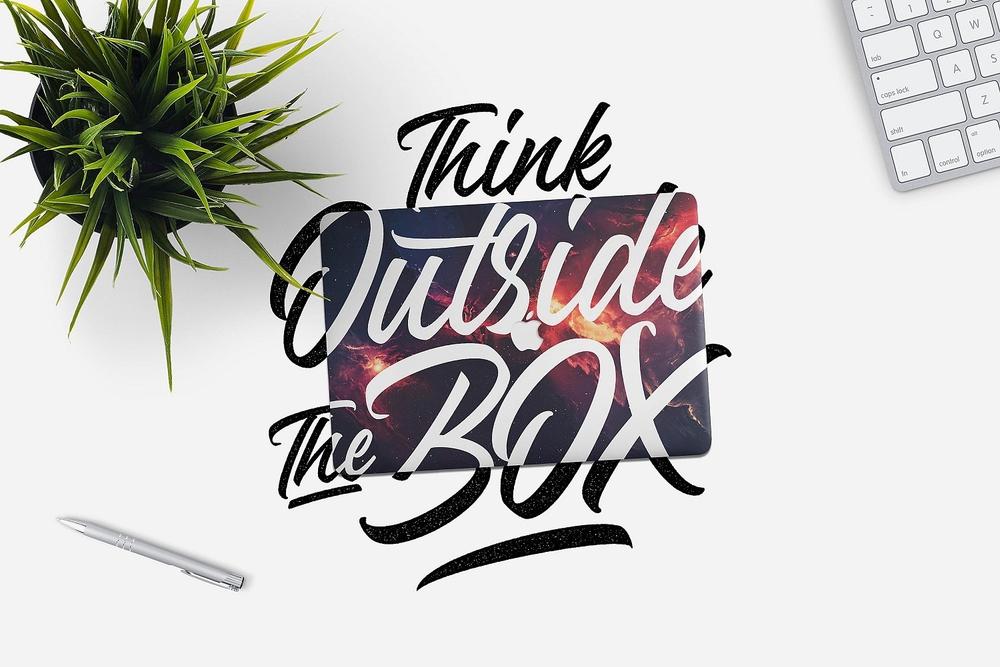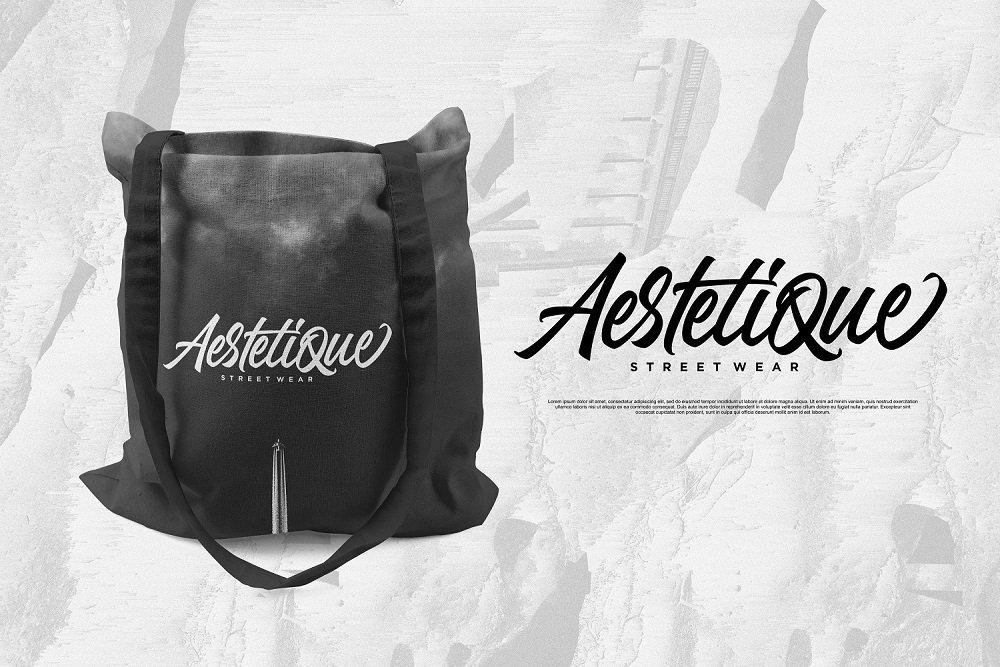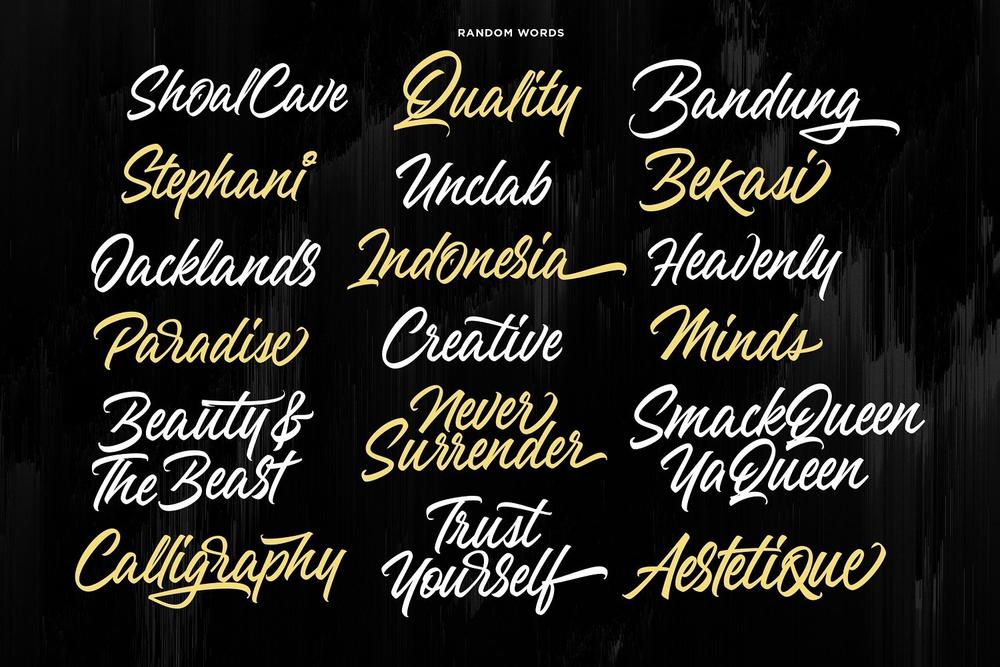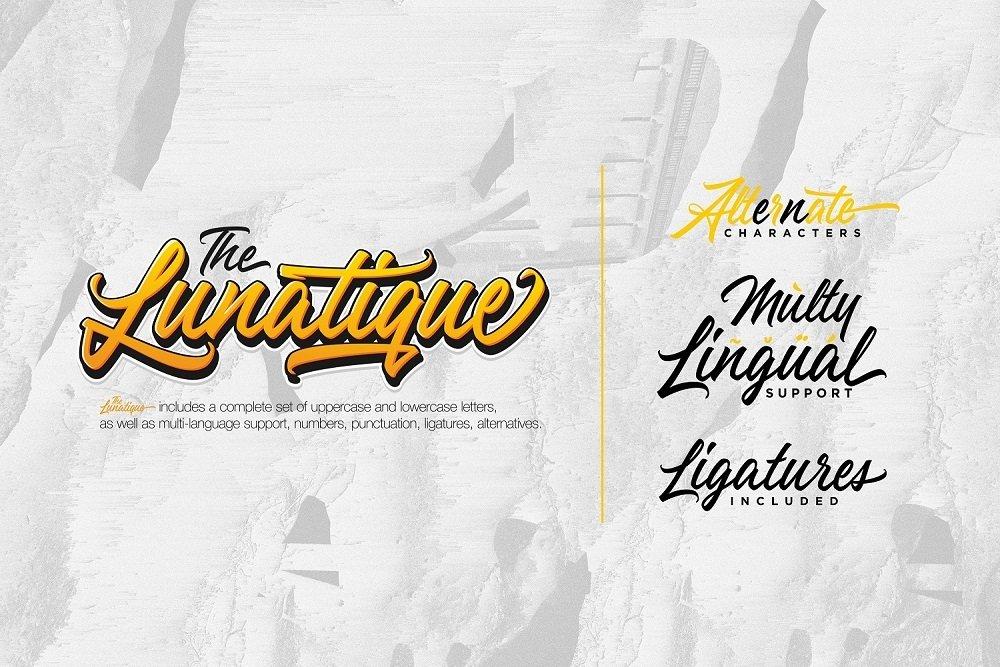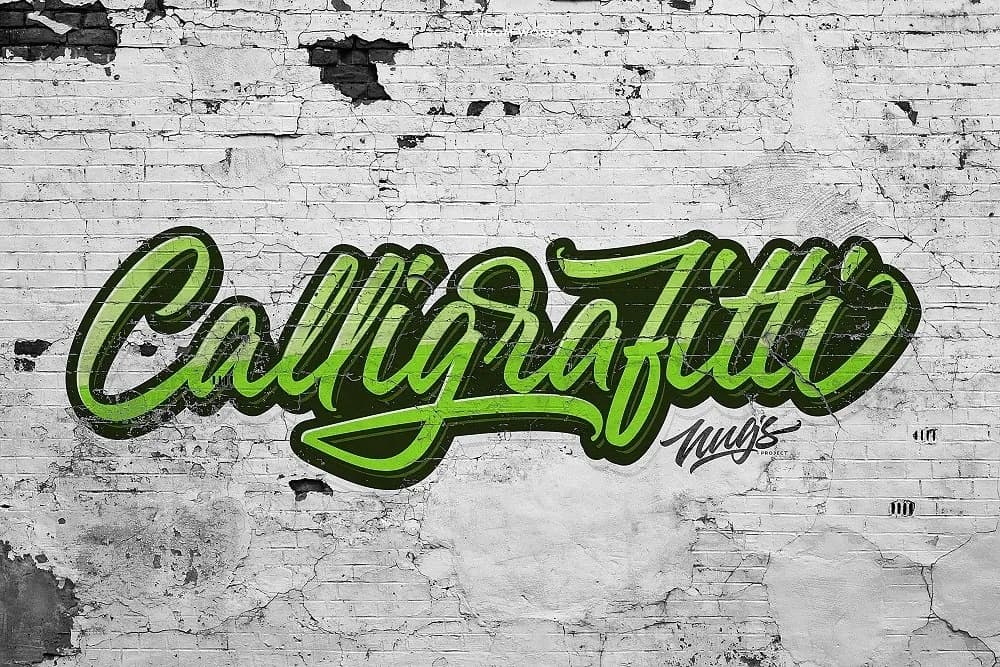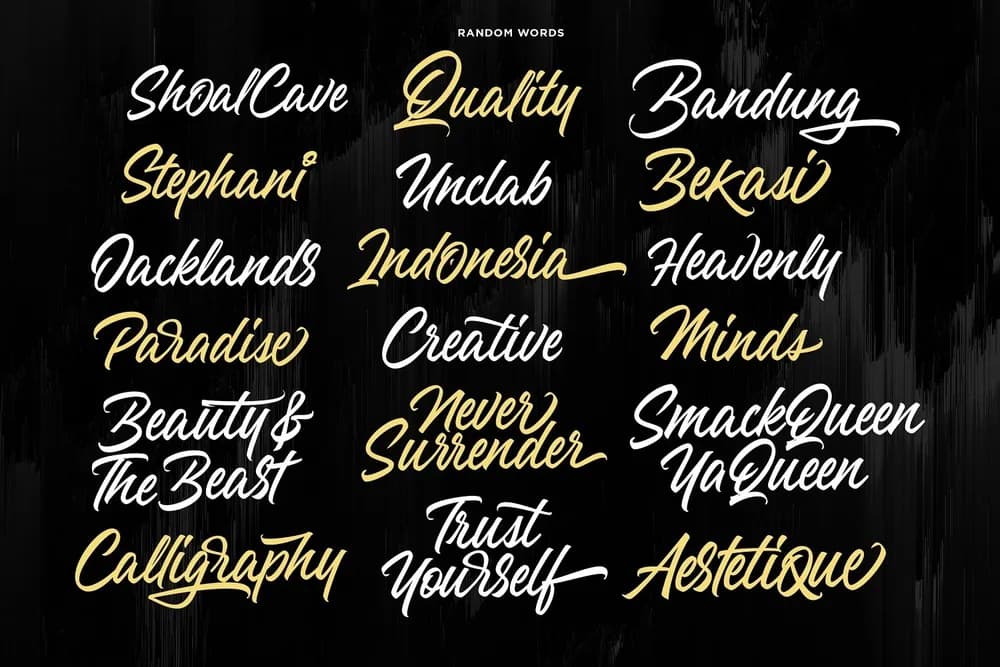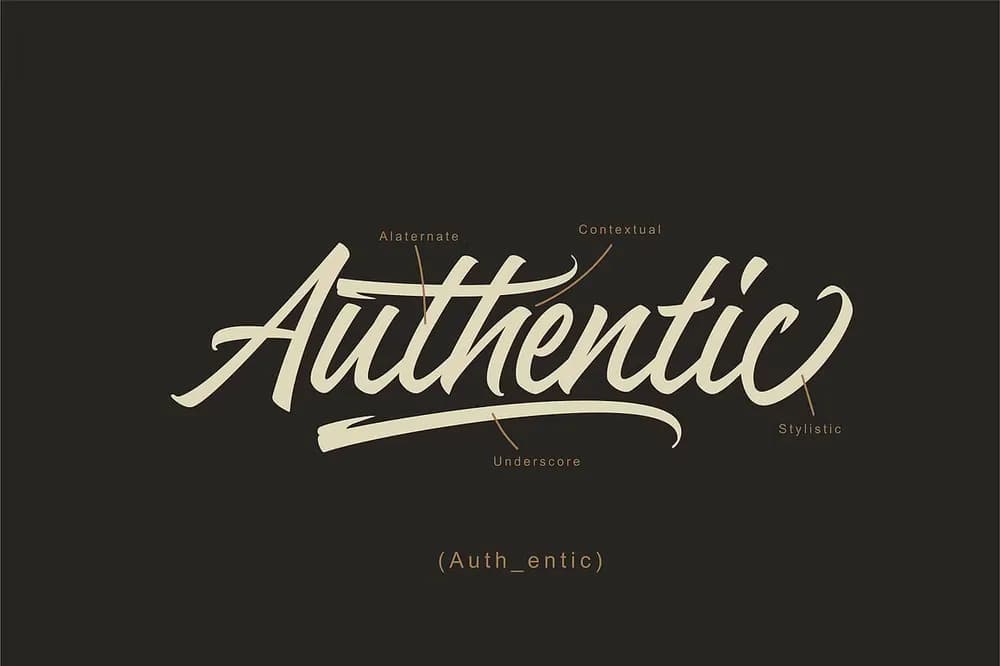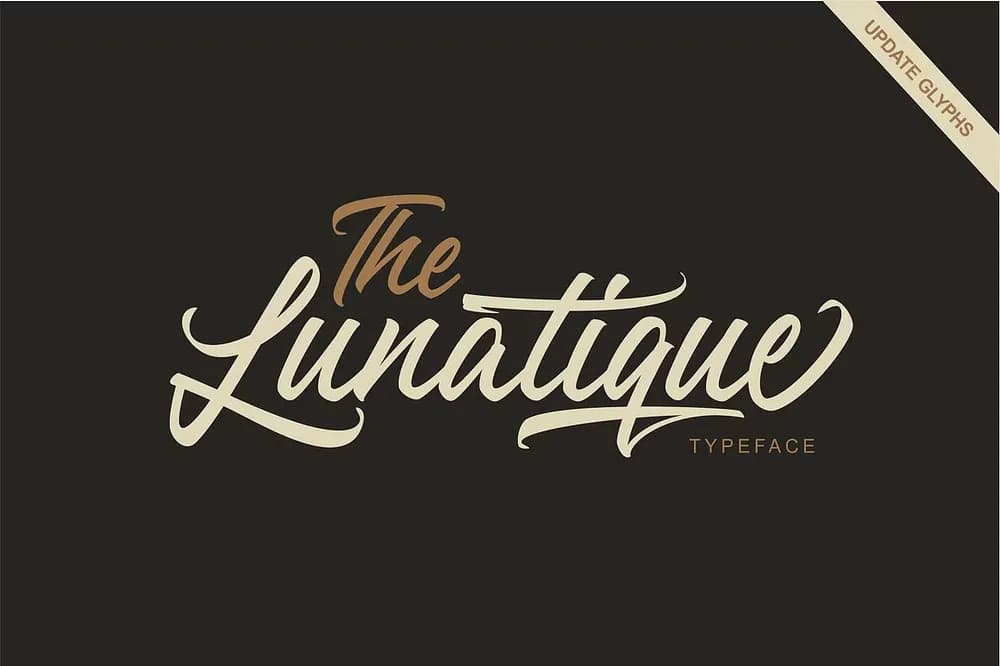
The Lunatique is a brush script font with a dynamic and energetic style. It can used for various purposes such as titles, signatures, logotypes, t-shirt designs, letterheads, signage’s, labels, newsletters, posters, badges, and every other design which needs an unique, striking font. How to get access alternate glyphs from open type fonts check this link : http://adobe.ly/1m1fn4Y Files included: TheLunatique (otf, ttf) TheLunatique (woff) Update ligature ff,off,of,om,on,op,or,ox,or,rr,tt,At,Of,Om. and more upadate stylistic underscore Line1,line2,line3,line4,line5